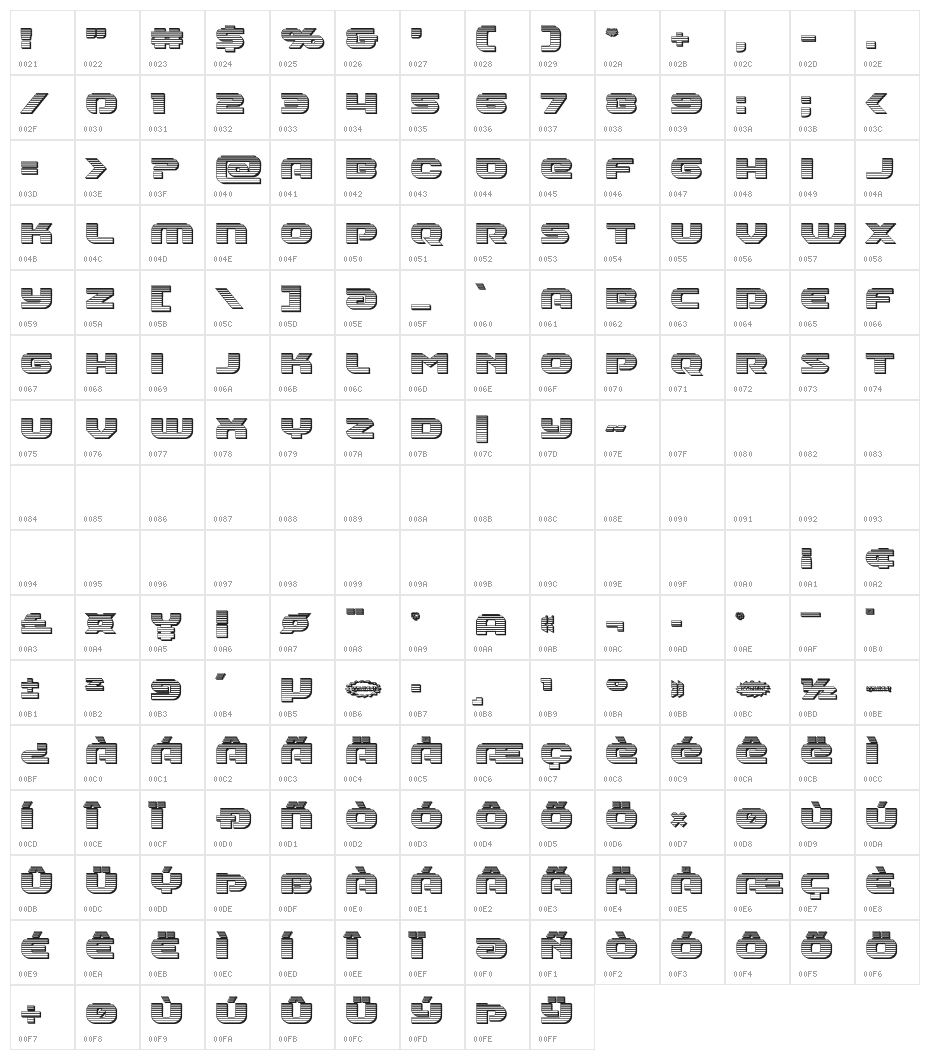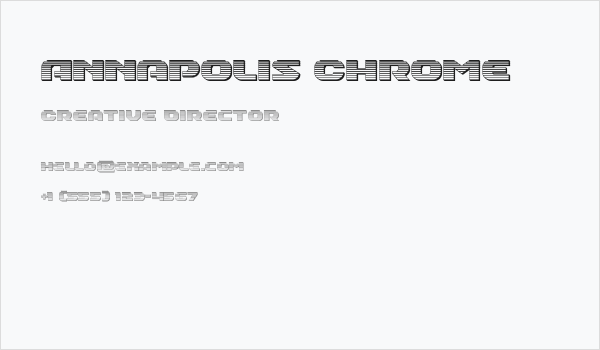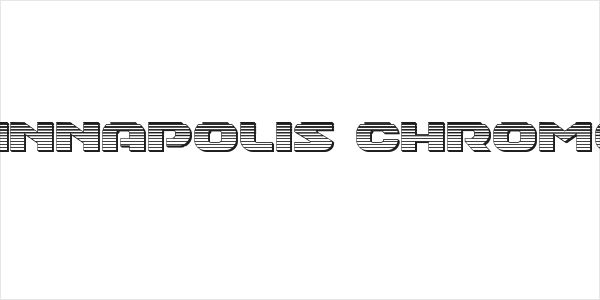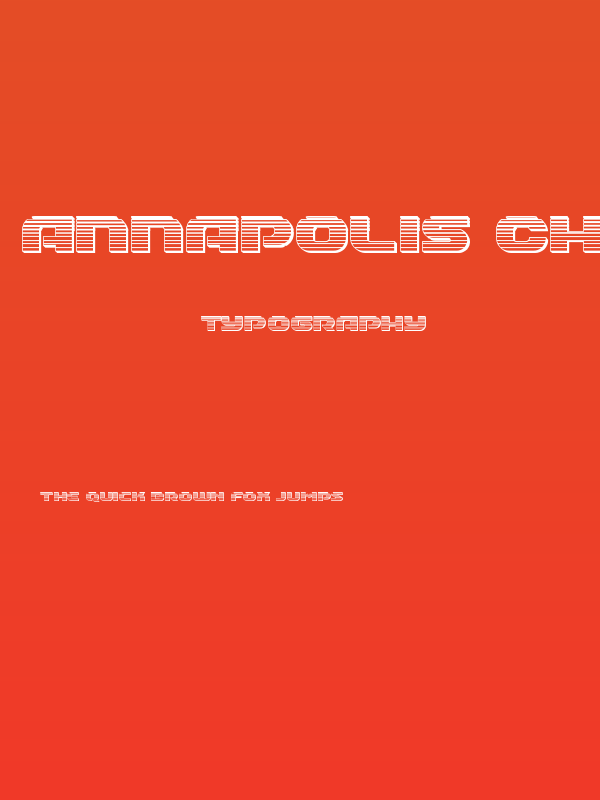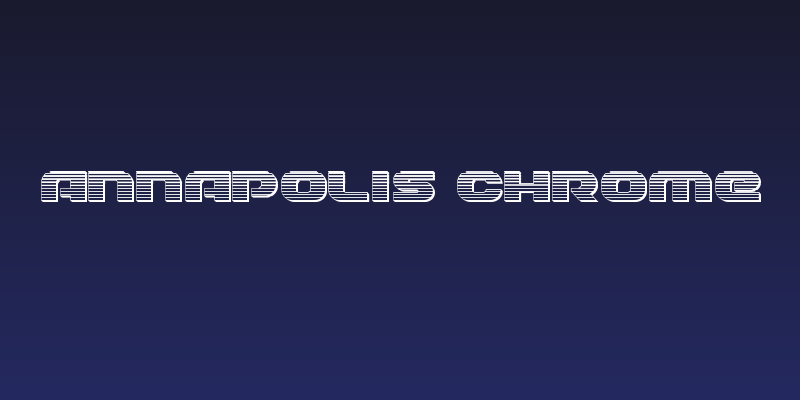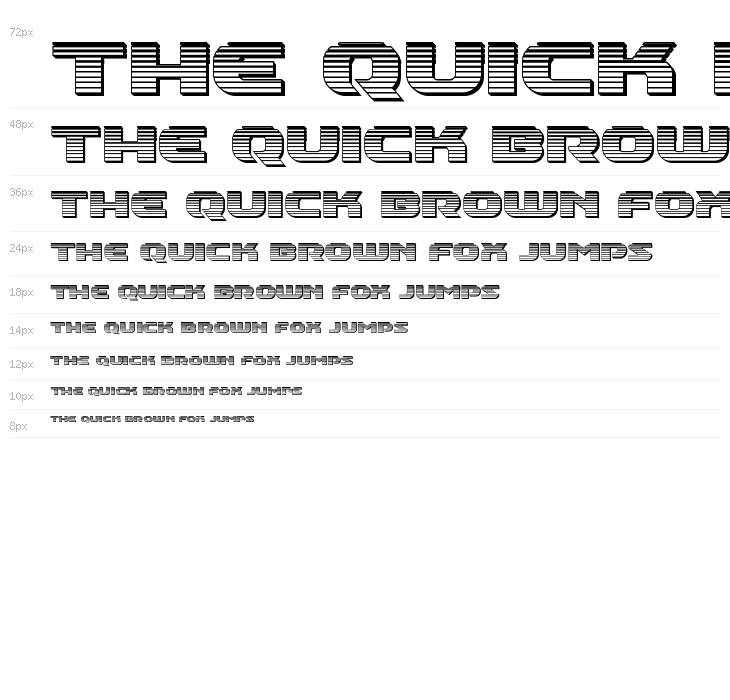
Annapolis Chrome Font
Annapolis Chrome Description
This font features a bold, futuristic design with a distinct striped pattern running horizontally across each character. The uppercase and lowercase letters maintain a consistent width, creating a uniform appearance. The numerals and special characters follow the same design principles, ensuring a cohesive look throughout. The font's geometric structure and clean lines give it a modern and technological feel, making it suitable for projects that require a contemporary and eye-catching typeface. Its unique style is both decorative and functional, offering versatility in various design contexts.
Proposed ProjectsIdeal for technology branding, sci-fi themed posters, video game titles, and modern advertisements.